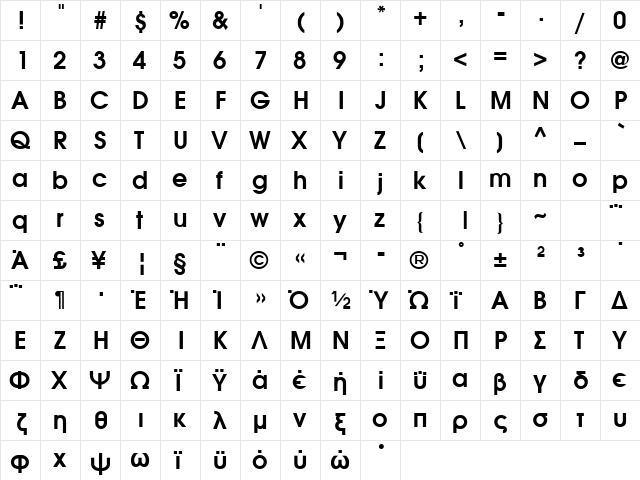
AvantGreek Bold
Design Context for AvantGreek Typeface
AvantGreek takes a measured approach to typography — its balanced proportions and neutral character make it a reliable workhorse for both digital and print work. The heavy weight commands attention and anchors typographic hierarchies.